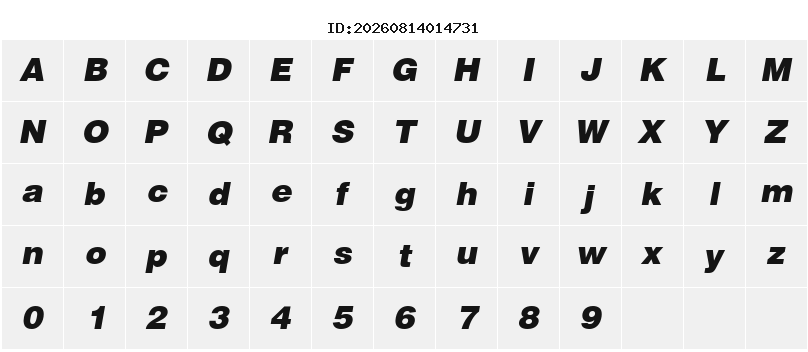
• Font Name: SwitzerlandBlack
• Font ID: SwitzerlandBlack Italic
• Full Font Name: SwitzerlandBlack Italic
• PostScript Name: SwitzerlandBlackItalic
About SwitzerlandBlack.ttf
SwitzerlandBlack.ttf is a modern, elegant sans-serif font designed for ultimate readability and visual harmony. Perfect for branding, headlines, web design, and print materials.